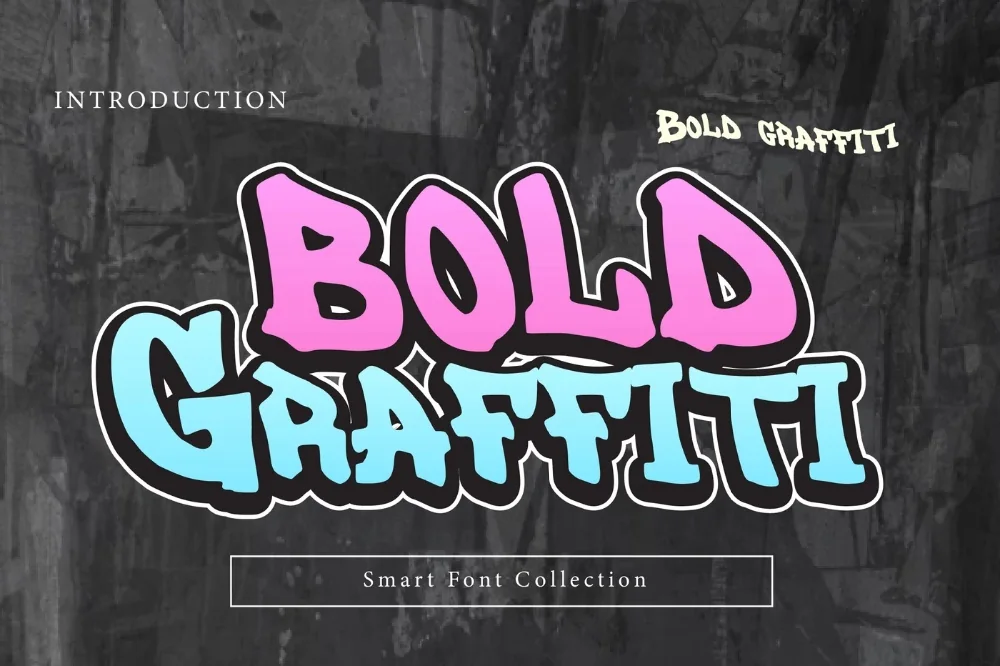
Heavy Weight Graffiti Alphabet
Among the heavy graffiti alphabet options in this library, this alphabet is the one worth trying first. Maximum ink on the page, with counters squeezed almost shut. Reach for it when a headline needs to feel physically heavy.
This is the densest alphabet in the collection. Stems are wide, spacing is tight, and the enclosed spaces inside letters like O and A stay deliberately small so a word reads as one solid mass of colour.
Works hardest on merch prints, album covers, and thumbnails where the type has to survive being shrunk to postage-stamp size.